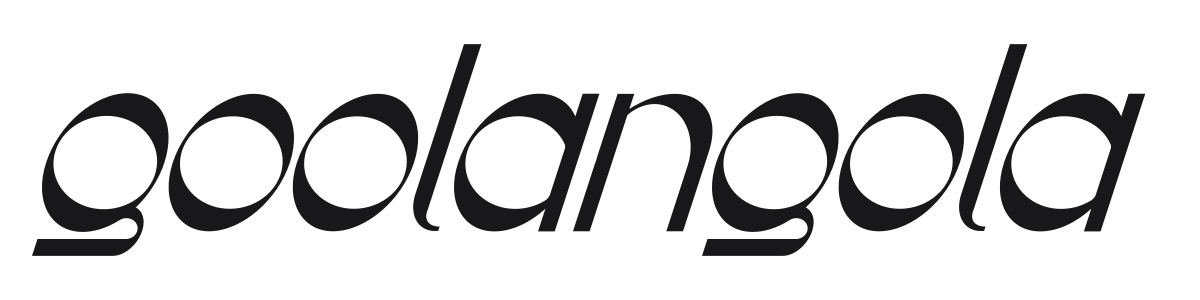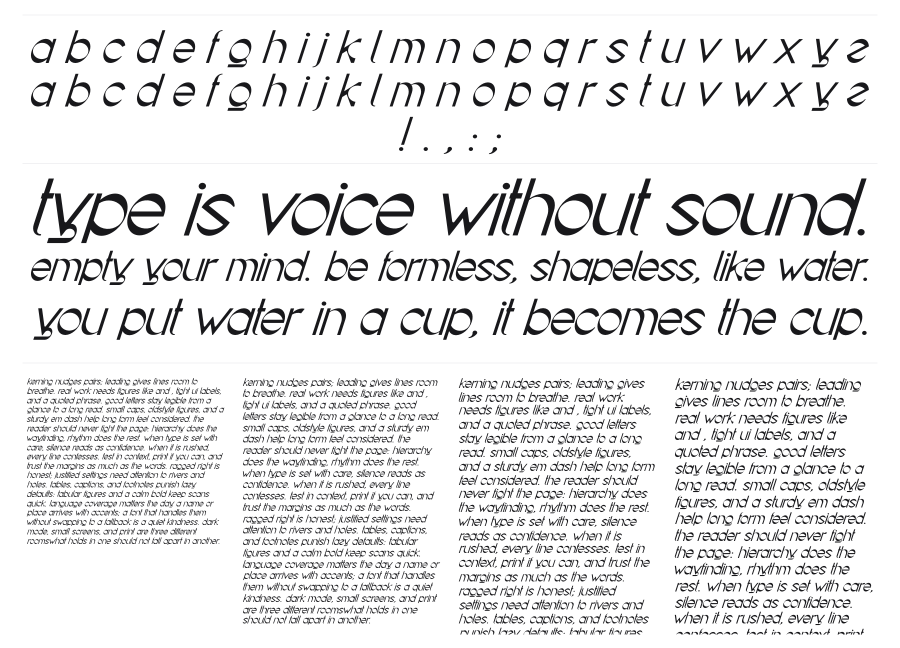
Goolangola
Goologola is a wide italic sans with a distinctly 1970s groove, built on sweeping curved strokes that flow and merge into each other. The generous proportions, large x-height, and soft flared terminals give it a casual, warm energy that sits somewhere between hand-lettered and machine-made. Great for headlines, record covers, packaging, and anywhere that needs a friendly retro kick.